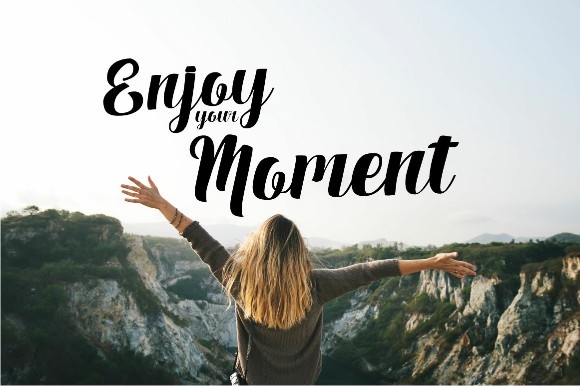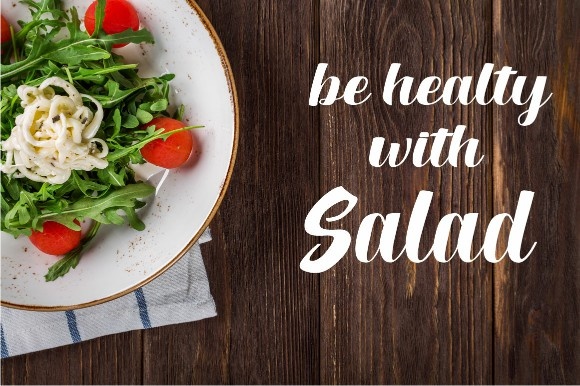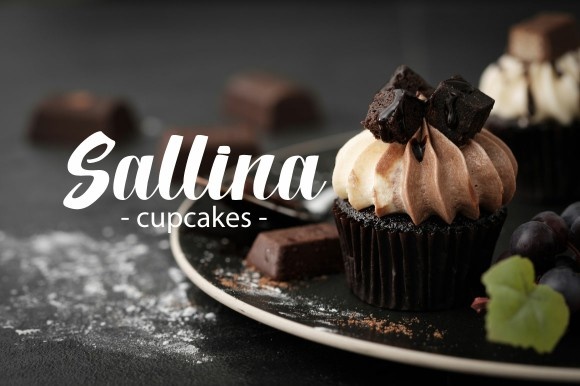
Fuister Script Font
About Fuister Script Font
The Fuister is a striking script font. It has bold letters with a good readability, which makes it perfect for invitations, greeting cards, branding materials, business cards, quotes, posters, and more!